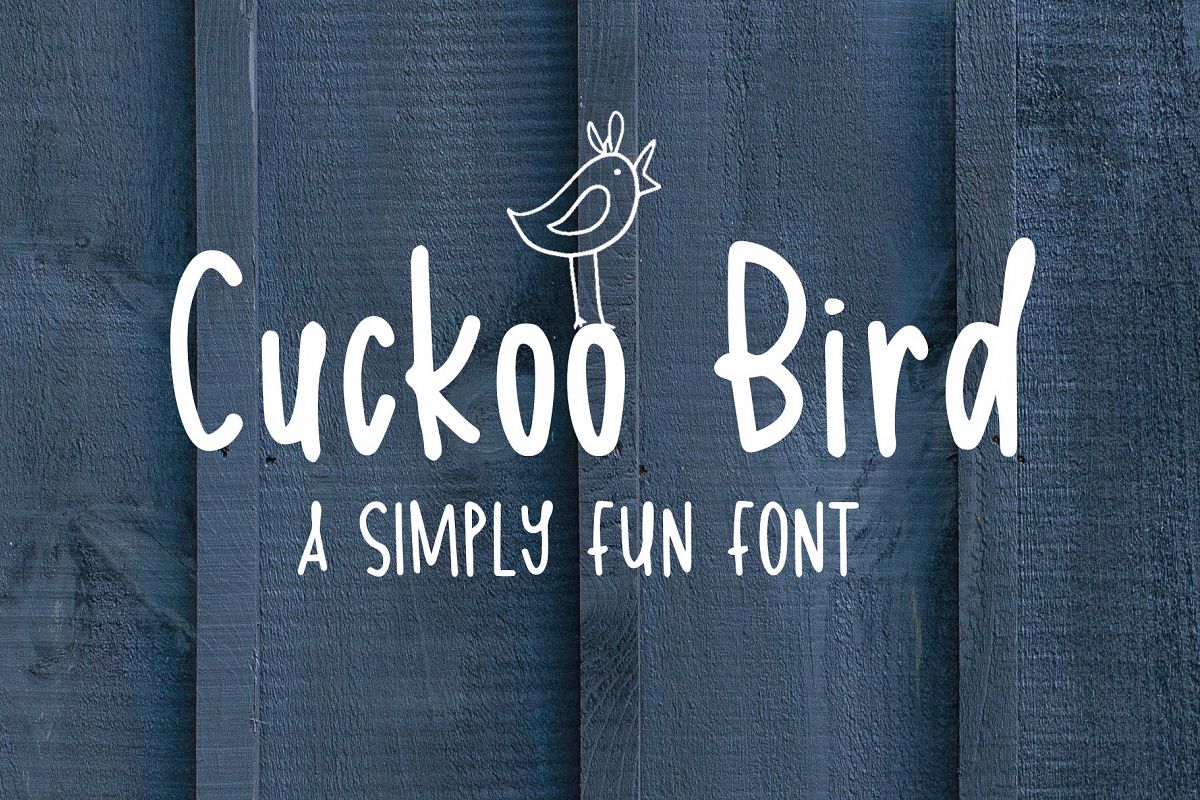
Cuckoo Bird Font
Cuckoo Bird is a simply fun hand-lettered font that is perfect for various projects! Use all caps, or all lowercase or mix together for various styles!